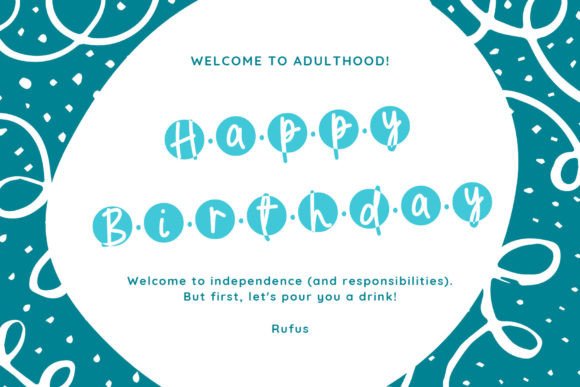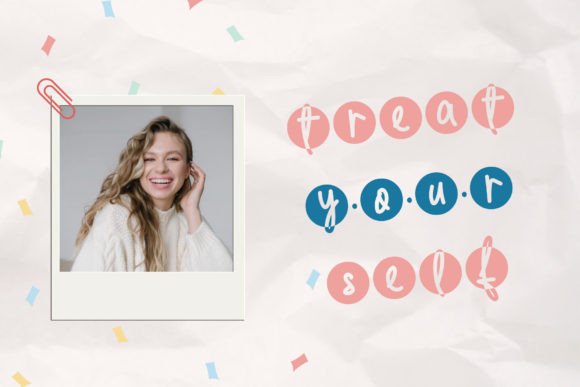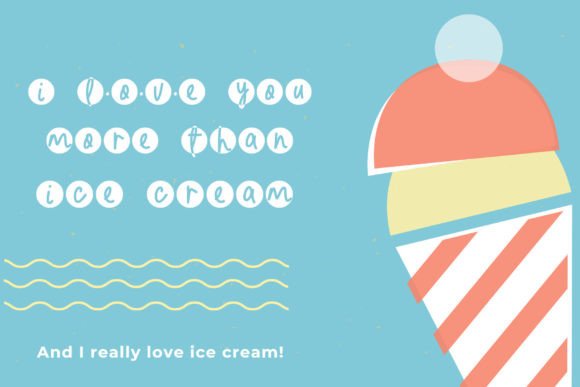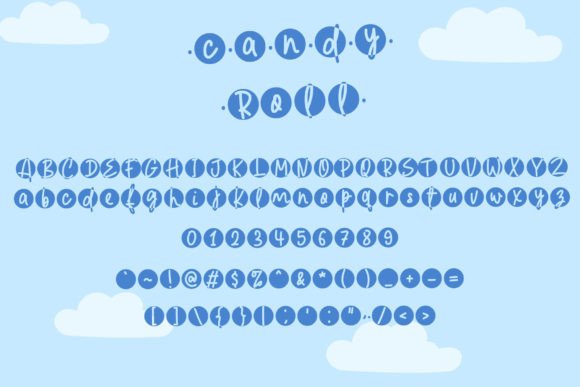
The Sweetest Font in Town: A Deep Dive into Candy Roll
I’ll never forget the time I was working on a whimsical craft project for a client, and I just couldn’t find the right font to match the playful vibe. The project was a custom design for a children’s party invitation, and I wanted something that would make the invitation feel like a handmade treasure. That’s when I stumbled upon Candy Roll, a fun round decorative font that instantly elevated my design to a whole new level. In this article, I’ll share my experience with Candy Roll, its unique features, and how you can make the most of it in your designs.
An Honest Review of Candy Roll
What I Love About Candy Roll
- ✨ Cute and Unique Style: Candy Roll has a one-of-a-kind, crafty look that adds a touch of whimsy to any design.
- ✅ Easy to Read: Despite its decorative nature, Candy Roll remains surprisingly legible, making it perfect for titles, headings, and short paragraphs.
- 🎉 Versatile: This font is suitable for a wide range of design projects, from party invitations and craft tutorials to social media graphics and blog headers.
While Candy Roll is an amazing font, there are a few things to keep in mind:
- 🤔 Limited Use in Body Text: Due to its decorative nature, Candy Roll might not be the best choice for long blocks of body text. It’s best used for titles, headings, or short paragraphs.
- ⚠️ Kerning Issues: As with any font, you might encounter some kerning issues, especially when using it in combination with other fonts. Be sure to adjust the kerning to achieve the best results.
The Backstory of Candy Roll
Candy Roll was designed by a team of creatives who wanted to create a font that would evoke the feeling of childhood wonder and playfulness. Inspired by vintage candy advertisements and handmade crafts, Candy Roll is a digital interpretation of the whimsical, hand-drawn letters often found in children’s books and party decorations.
Q: What is Candy Roll font?
A: Candy Roll is a fun, round decorative font with a cute, unique, and crafty style.
Q: Is Candy Roll suitable for body text?
A: While Candy Roll is legible, it’s best used for titles, headings, or short paragraphs due to its decorative nature.